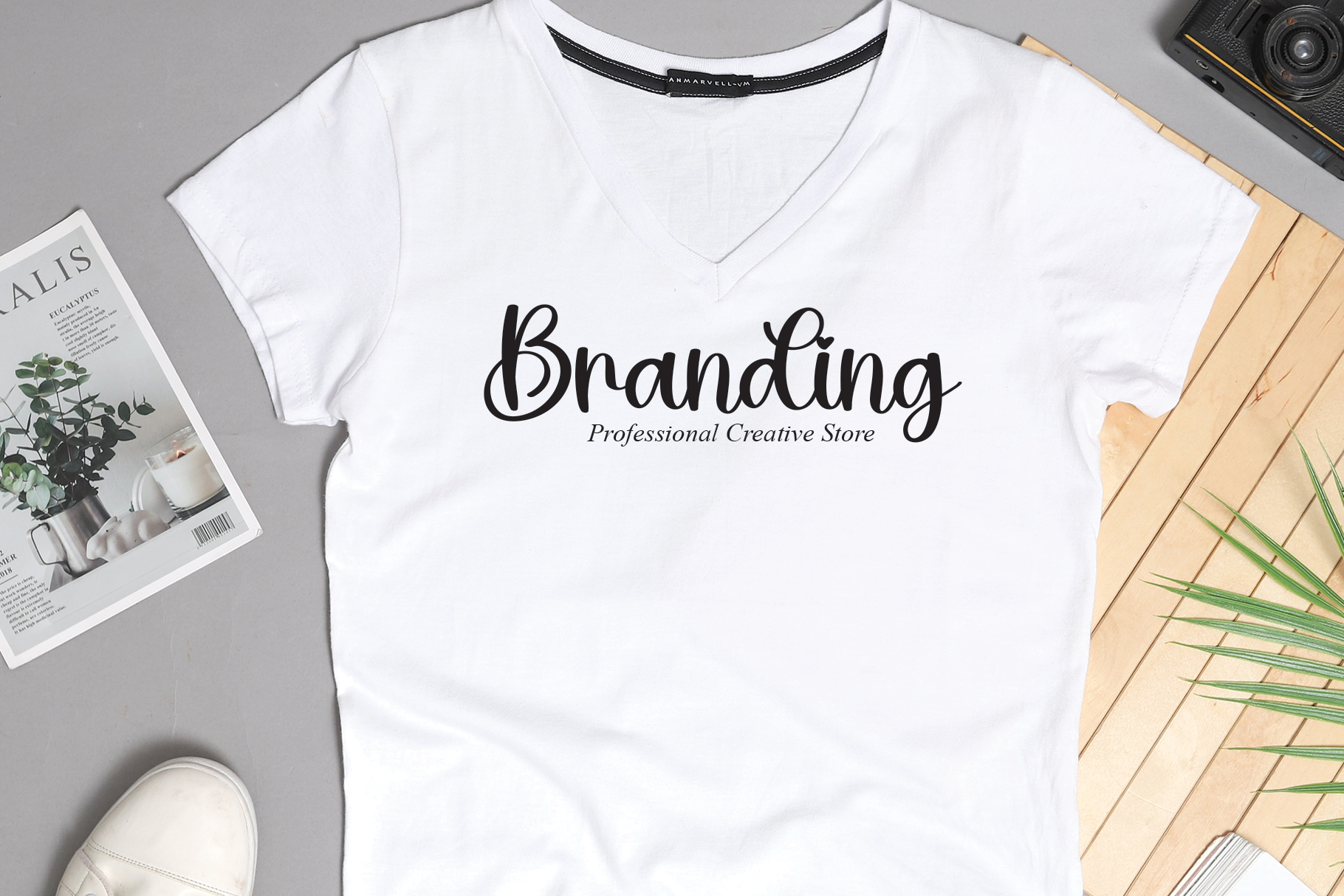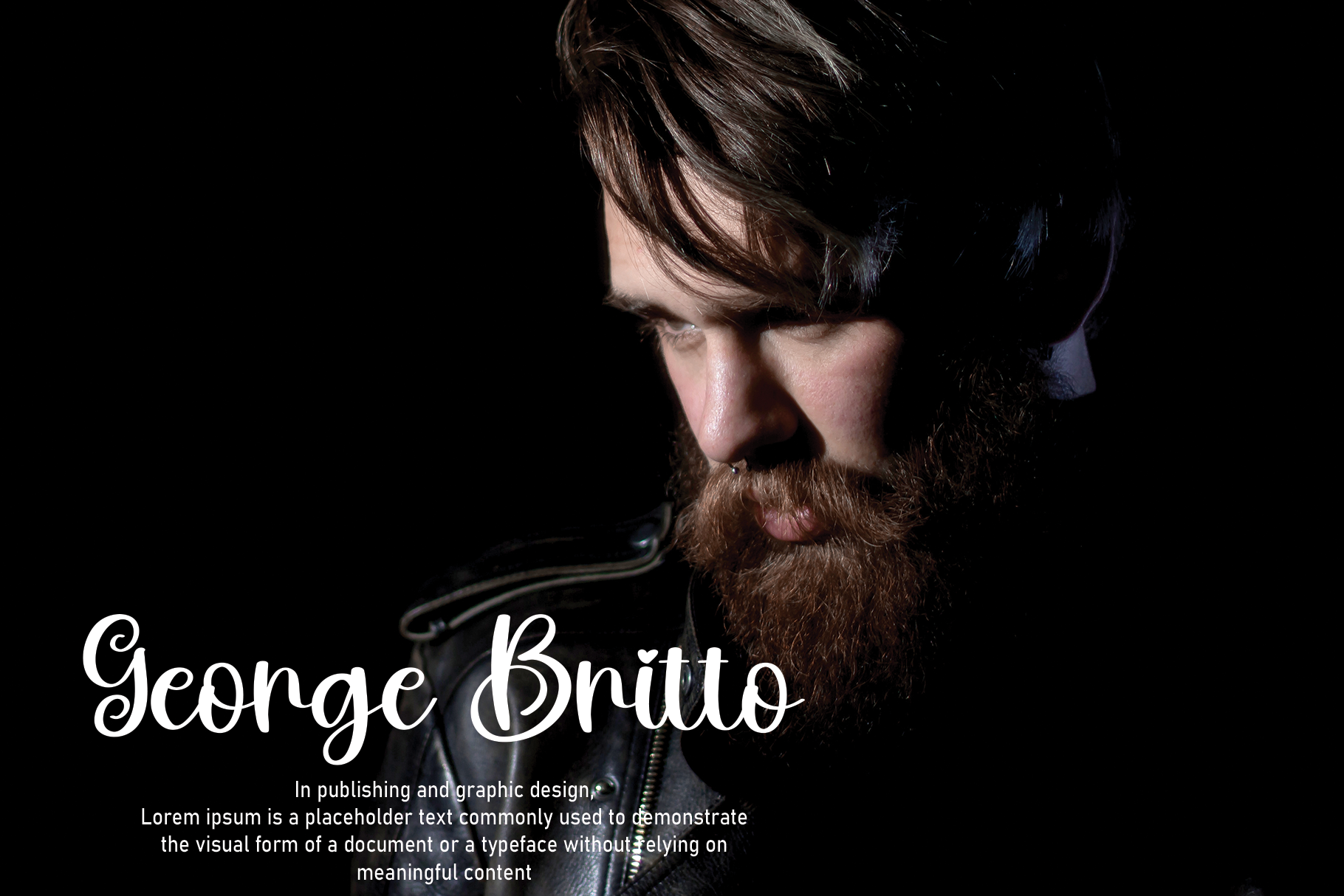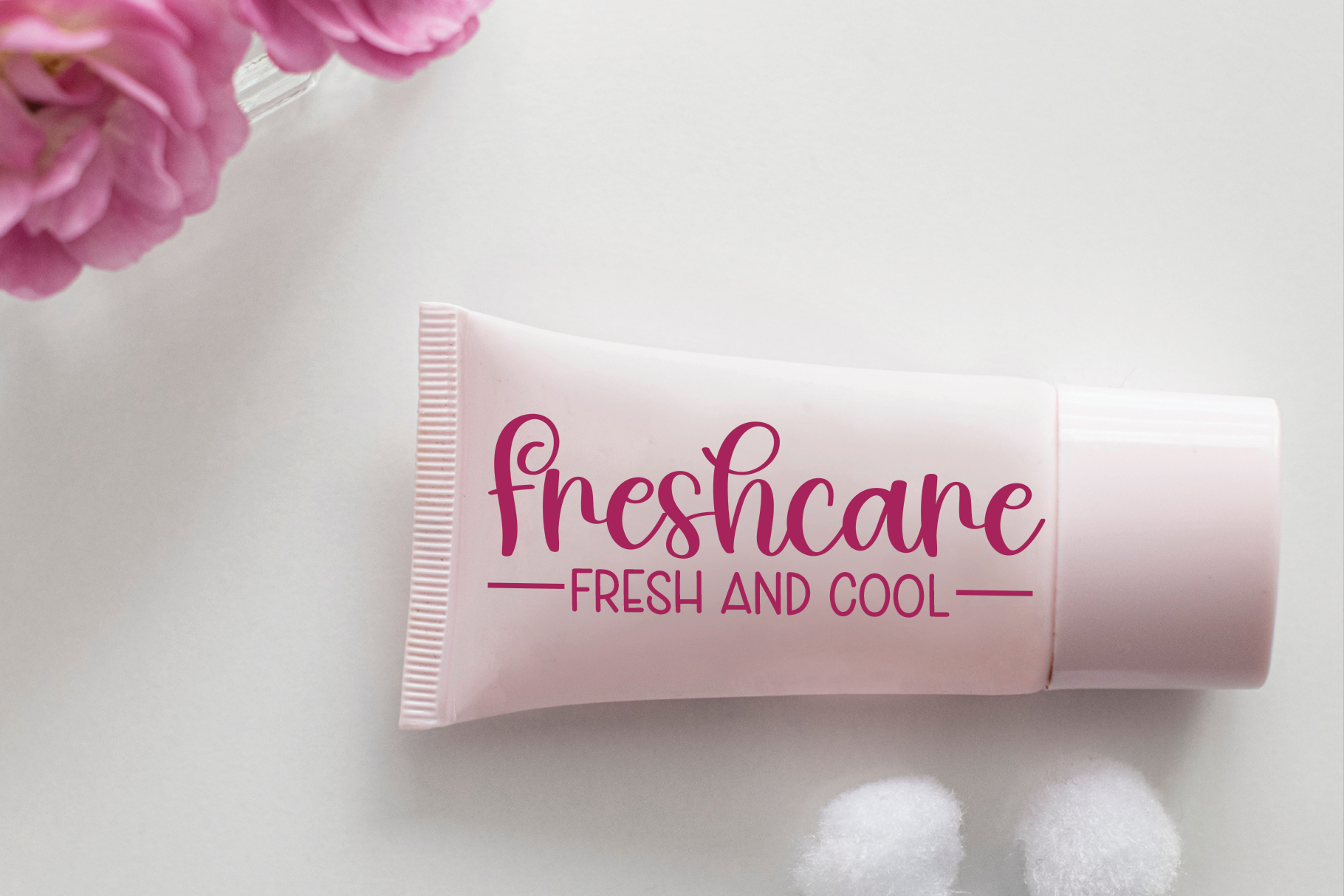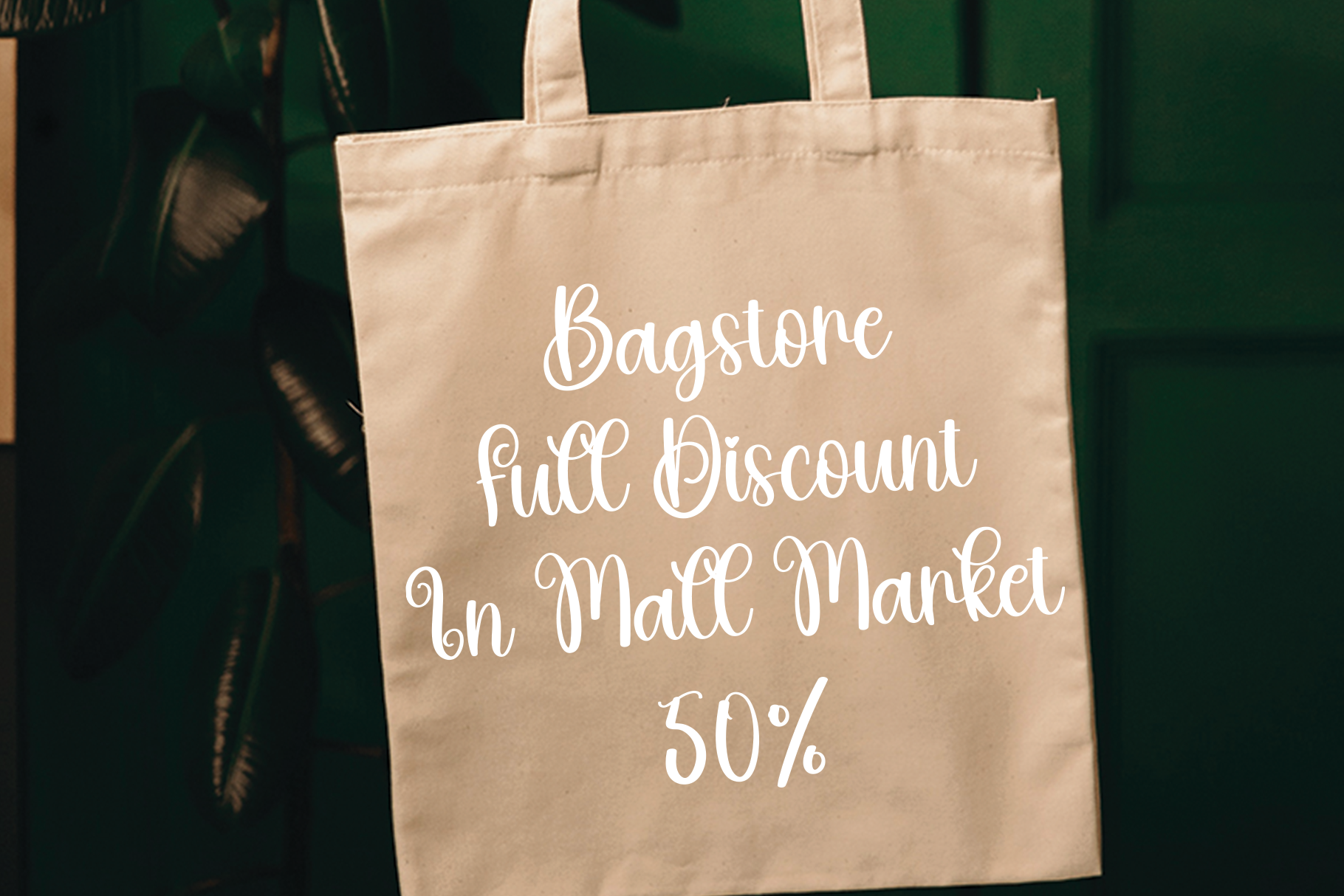
Restie Font
Restie Script Font
This font is a gorgeous and sweet calligraphy typeface with characters that dance along the baseline. It will add a luxury spark to any design project that you wish to create!
the latest style letters are perfect for wall displays, wedding invitations, social media post logos, advertisements, product packaging, product designs, labels, photography, watermarks, invitations, stationery, and any project that requires taste handwriting.